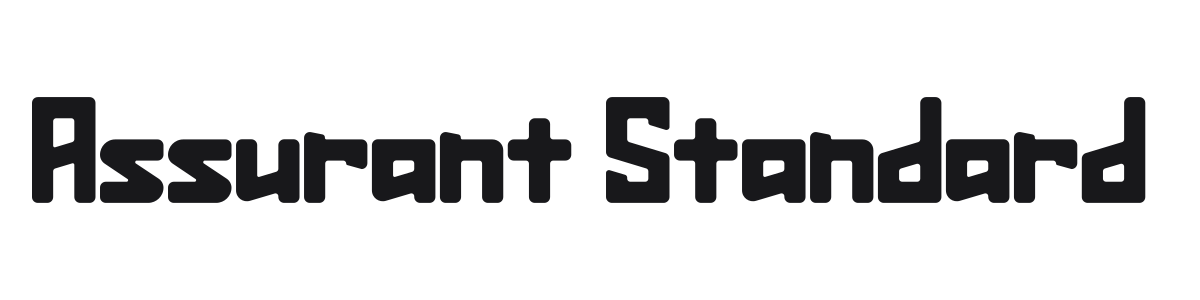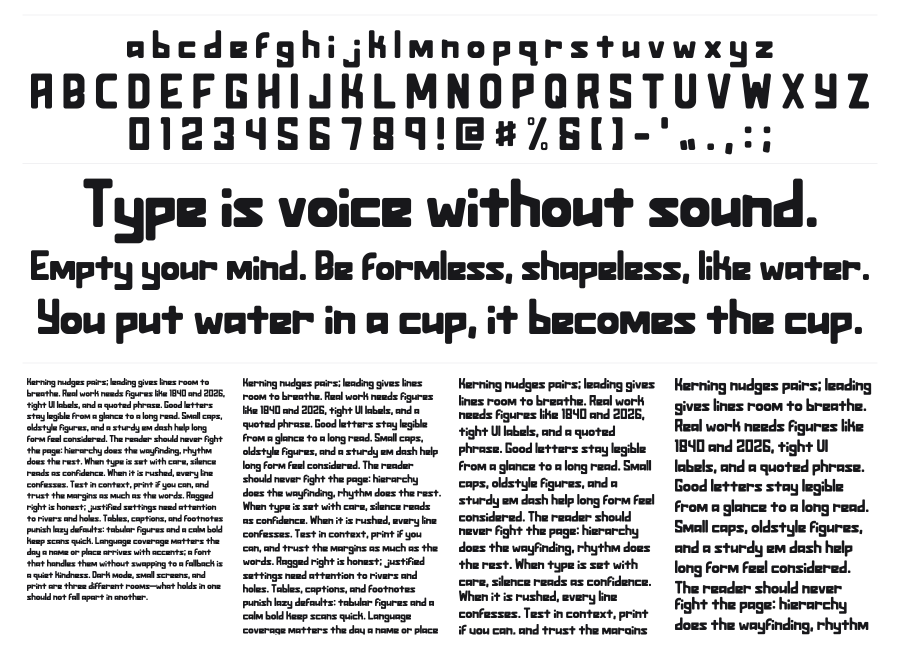
Assurant Standard
Assurant is a heavy rounded sans with thick, uniform strokes and soft corners that give every character a pillowy, inflated feel. The design has an unmistakable 1970s groovy quality, somewhere between bubble lettering and retrofuturism. It works best at large sizes where its personality can breathe.